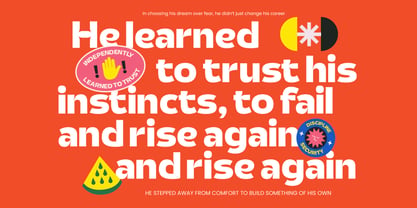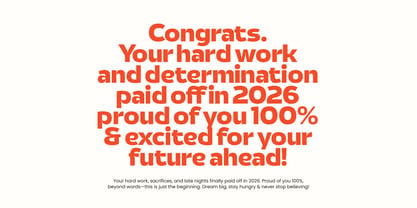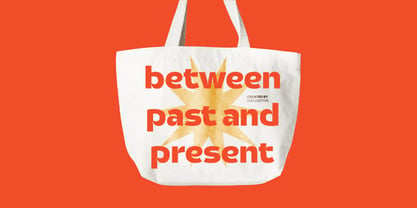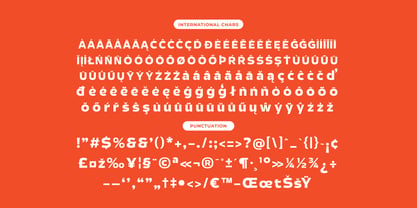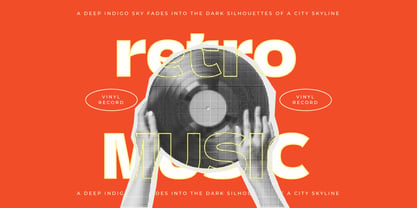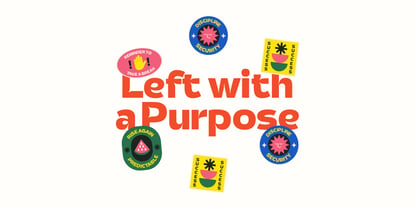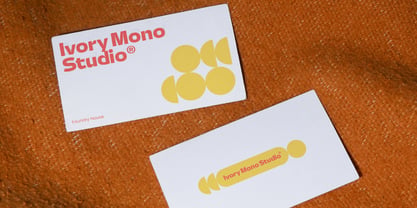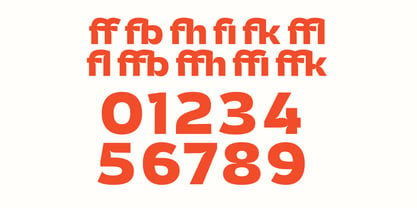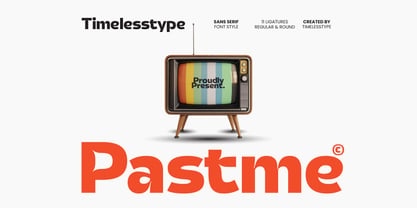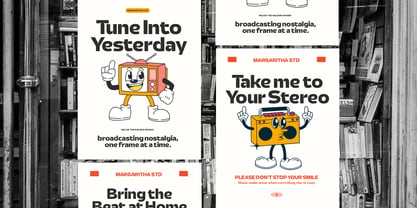
Pastme Rounded
von Timelesstype Studio
Die Schriftfamilie Pastme Rounded wurde von Heru Utama Putra entworfen und von Timelesstype Studio veröffentlicht. Pastme Rounded enthält 2 Stile und Familienpaketoptionen. Mehr über diese Familie
Pastme is a clean modern sans serif inspired by retro broadcast typography, blending soft geometric forms with smooth rounded terminals to create a friendly, confident, and versatile visual voice. Designed with balanced proportions, subtle character personality, and 11 crafted ligatures, Pastme works effortlessly across branding, packaging, editorial layouts, digital interfaces, and nostalgic-themed visuals. Its Regular and Round styles offer flexibility for both bold headlines and approachable body text, making it an all-purpose toolkit for designers who need clarity, simplicity, and timeless style in one professional font family.
Designer: Heru Utama Putra
Foundry: Timelesstype Studio